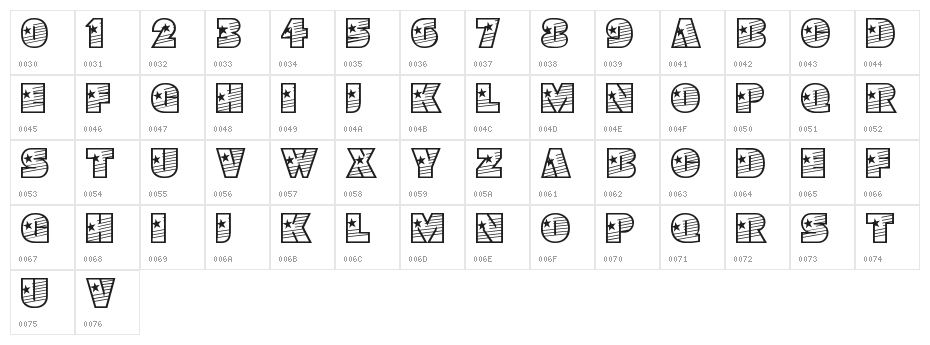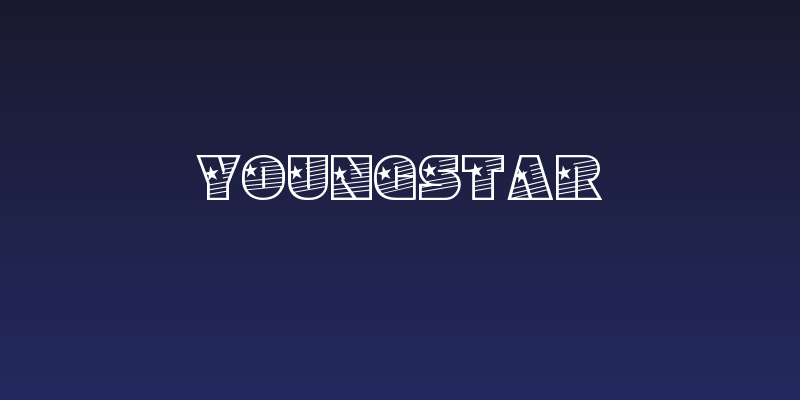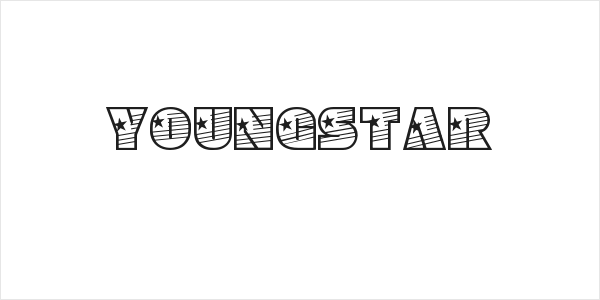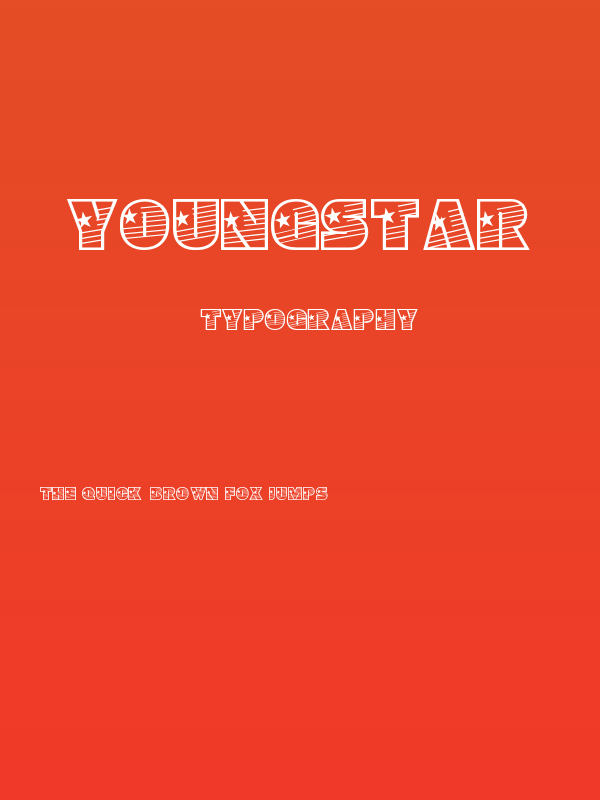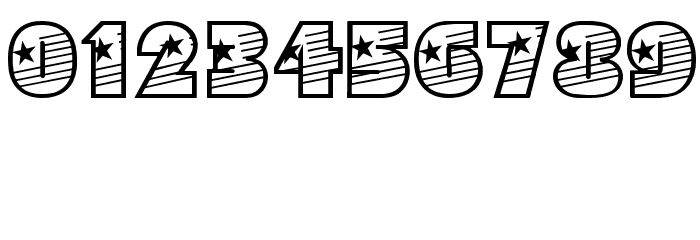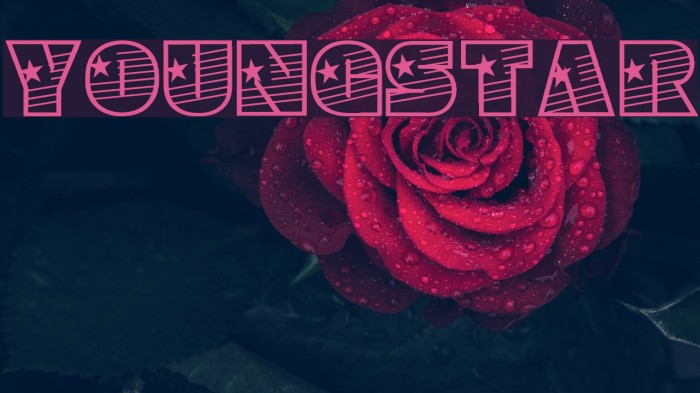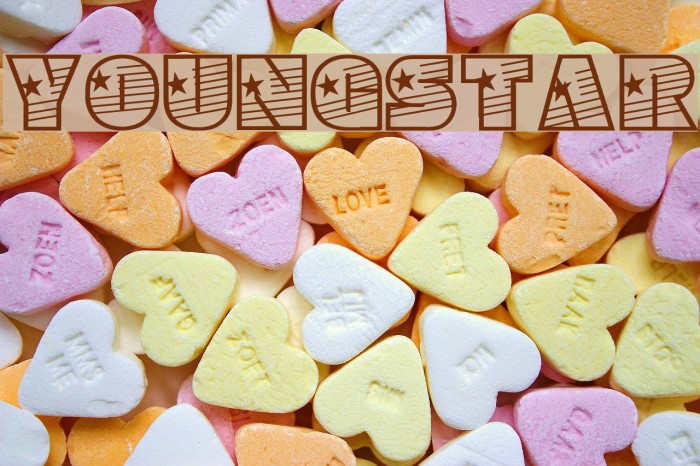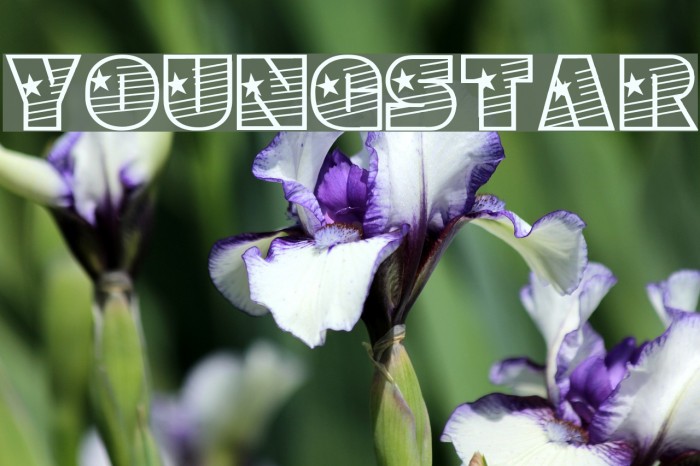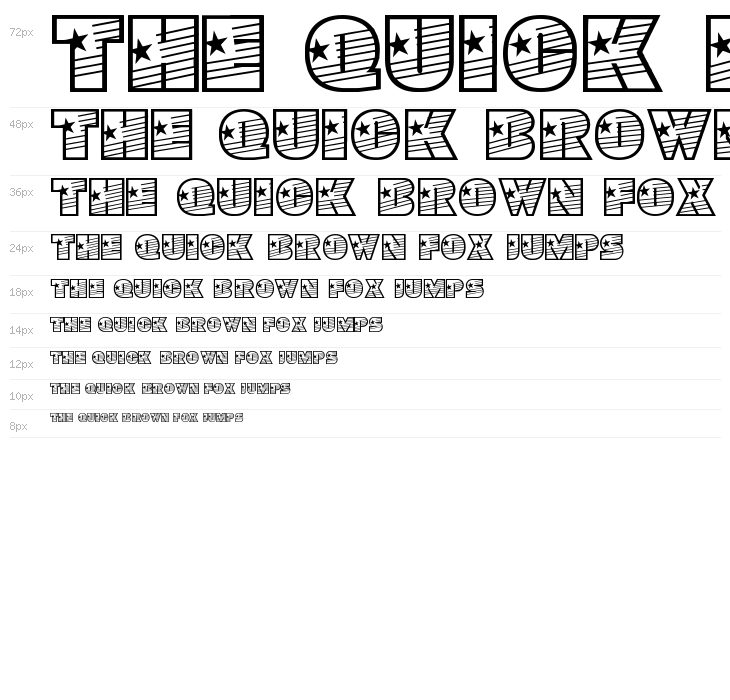
YoungStar Font
YoungStar Description
This font features a bold, decorative style with a unique pattern inside each character. The letters and numbers are filled with stars and stripes, creating a playful and eye-catching design. The outline is thick, enhancing the visibility of the internal pattern. This font is highly decorative, making it suitable for creative and themed projects. The uppercase and lowercase letters maintain a consistent style, and the numbers follow the same design principles, ensuring uniformity across all characters.
| Proposed Projects | Ideal for children's book covers, party invitations, festive banners, and themed event posters. |